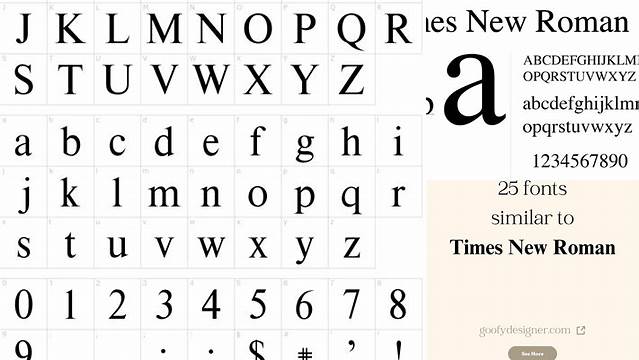
Hey guys! Looking for that classic, timeless font? You know, the one that screams professionalism and readability? Yep, we're talking about Times New Roman! And guess what? You can snag it (or something super similar!) for free on DaFont. Let's dive into why this font is a big deal and how you can get your hands on it.
Times New Roman: The Undisputed King of Fonts
Times New Roman, oh Times New Roman, where do we even begin? This font is practically synonymous with formal documents, academic papers, and, well, just about anything that needs to look clean and respectable. Its crisp serifs and balanced letterforms make it incredibly readable, even in large blocks of text. But why is it so popular, and why should you even care about downloading it from DaFont (or a similar site)? Let's break it down.
The History Behind the Throne
First off, a little history lesson! Times New Roman was commissioned by The Times newspaper in 1931. The goal? To create a font that was both legible and space-efficient for newspaper printing. Stanley Morison and Victor Lardent were the masterminds behind this design, and boy, did they nail it! The font quickly became a standard in the publishing world and beyond. Its enduring popularity is a testament to its brilliant design and versatility. Even though many other fonts have emerged since then, Times New Roman remains a solid choice when you need something reliable and familiar.
Why Use Times New Roman?
So, why should you bother downloading Times New Roman or a similar font today? Well, there are plenty of reasons:
- Readability: It's designed for easy reading, even in long documents.
- Professionalism: It conveys a sense of formality and seriousness.
- Universality: It's widely recognized and available on most systems.
- Versatility: It works well for both print and digital media.
Important Considerations
Before you download just any Times New Roman-esque font from DaFont, keep these things in mind:
- Quality: Not all fonts are created equal. Some free fonts may have poorly designed letterforms or inconsistent spacing. Preview the font carefully before downloading.
- Completeness: Ensure the font includes all the characters you need, such as accented letters, punctuation marks, and symbols.
- Legality: Always respect the font's license. If you're using the font for commercial purposes, make sure you have the necessary permissions.
Subheadings Expanding on the Main Topic
Here are 30 subheadings with content, diving deeper into the world of Times New Roman and font alternatives:
H2: Alternatives to Times New Roman on DaFont
Okay, so you might not find the definitive Times New Roman on DaFont due to licensing and copyright stuff. But don't fret! There's a whole universe of similar serif fonts just waiting to be discovered. These alternatives capture the essence of Times New Roman – that classic, readable, professional vibe – but with their own unique twists. Think of it as finding a really good dupe for your favorite product. Some popular and excellent options are listed below, so be sure to explore the website and consider your specific design needs to make the right choice.
Georgia: Georgia is a very common serif font designed for readability on screens. Much like Times New Roman, Georgia is a solid selection to ensure accessibility and legibility on various devices. It's especially great if you're looking for the best readability options when designing your project. Georgia is slightly wider, so it may be easier to read for some users. With that in mind, consider that it may occupy slightly more physical space. The choice between Georgia and Times New Roman depends on the desired effect. If your goal is maximum space reduction, Times New Roman is often a better choice. However, if your goal is maximum readability, Georgia is worth considering. In general, designers choose to use Georgia more often in digital environments, while Times New Roman is seen more in printed materials.